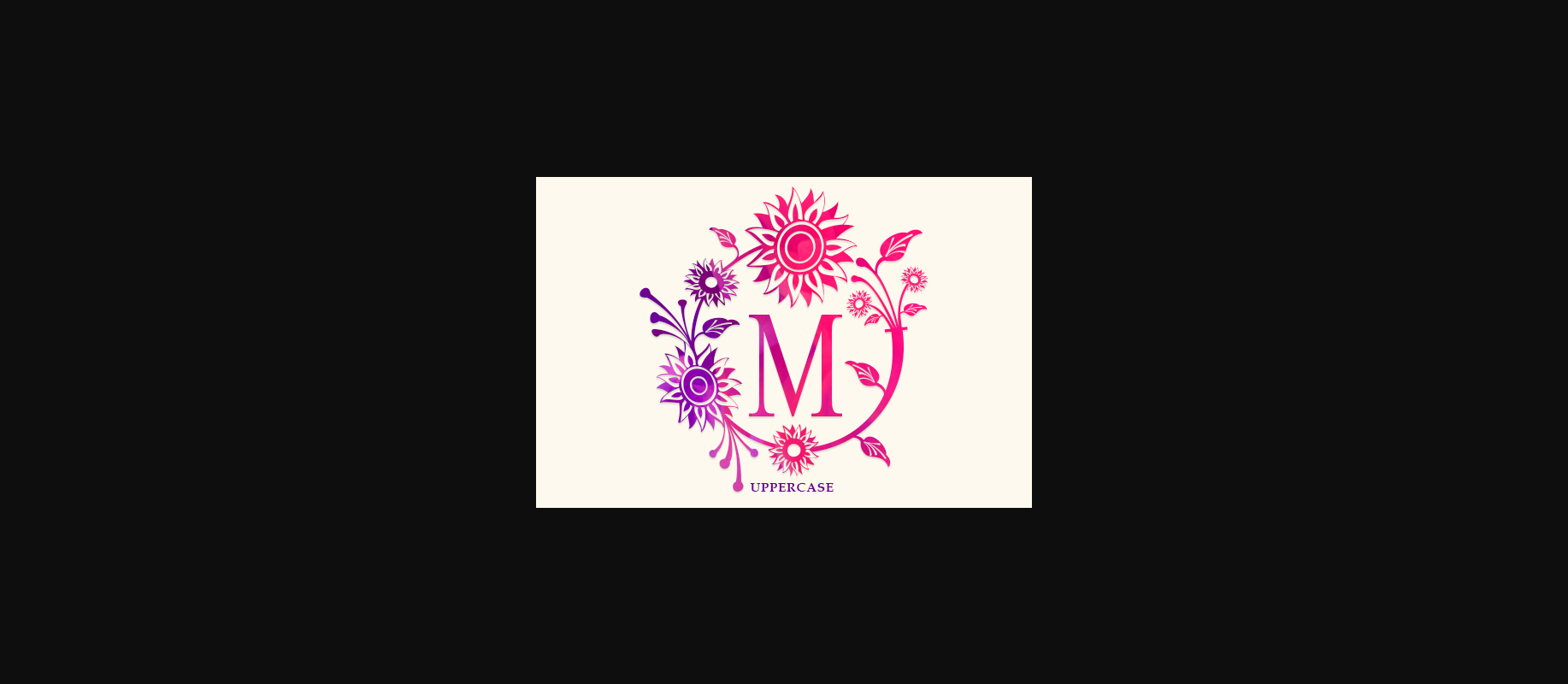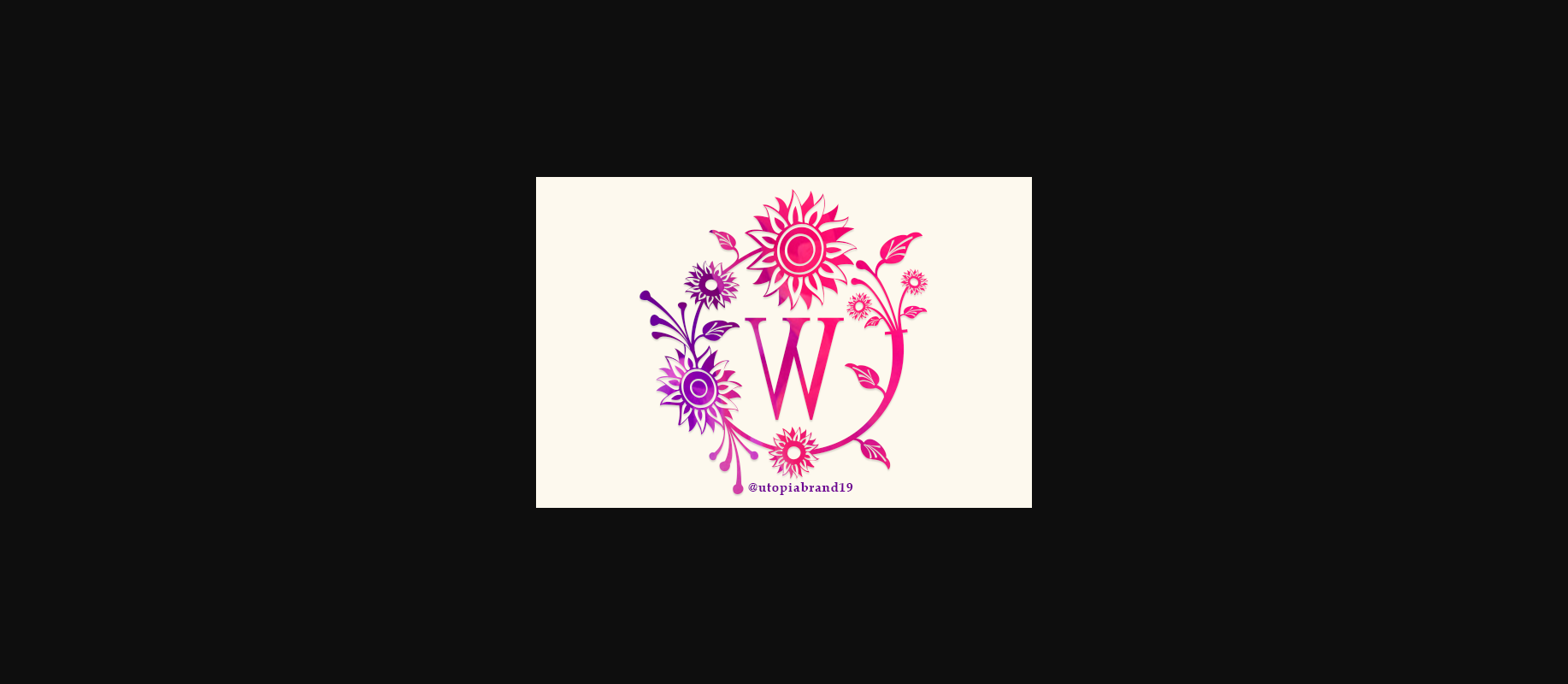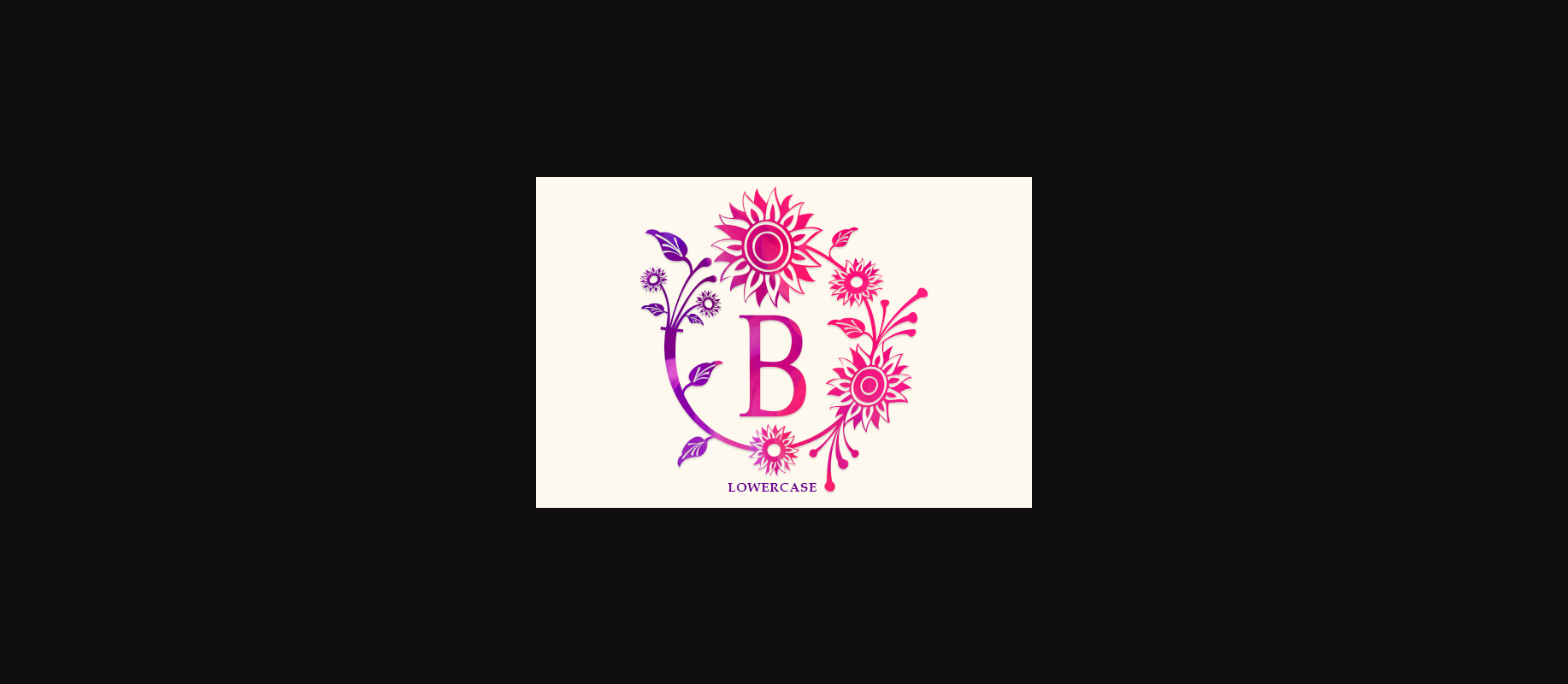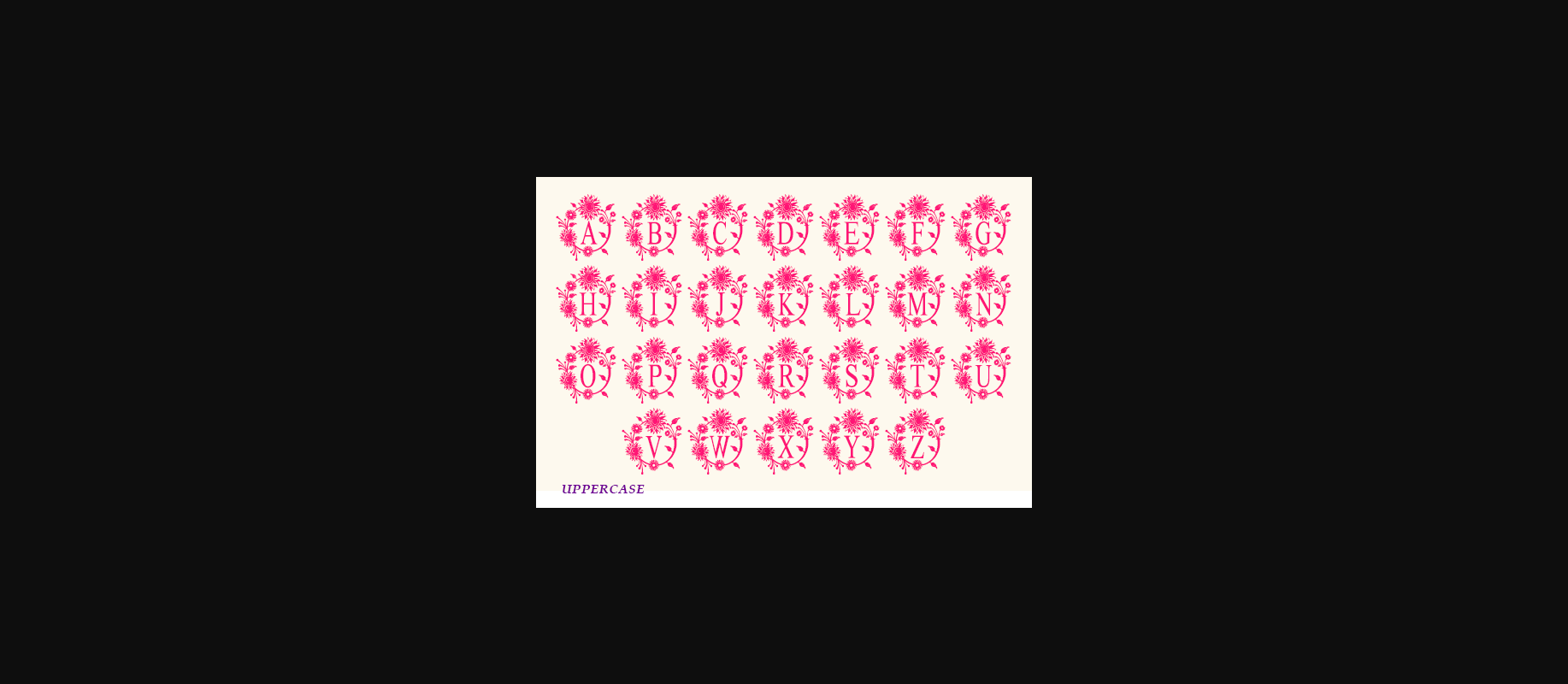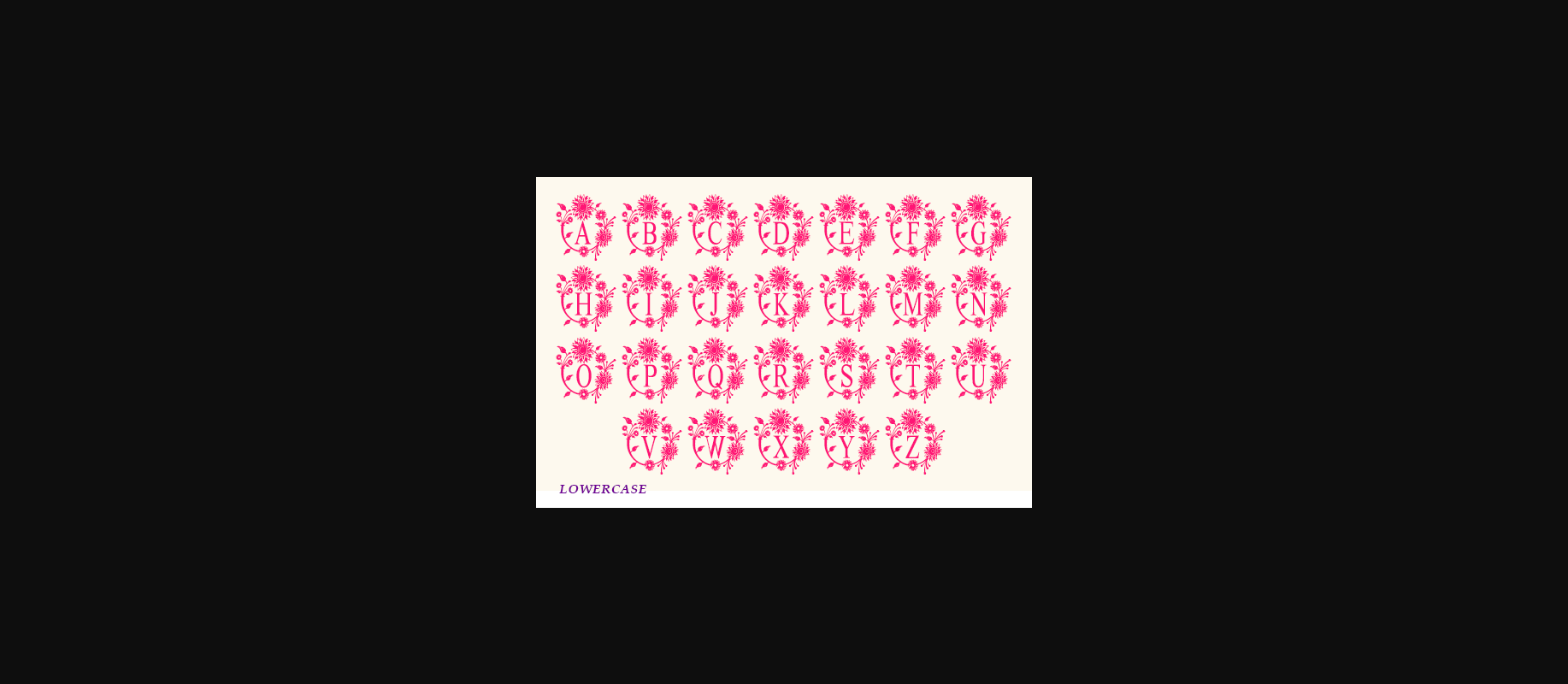
Morina Monogram Font
About Morina Monogram Font
Morina Monogram is a charming decorative font. Fall in love with its authentic feel and use it to create gorgeous wedding invitations, beautiful stationary art, eye-catching social media posts, and cute greeting cards.